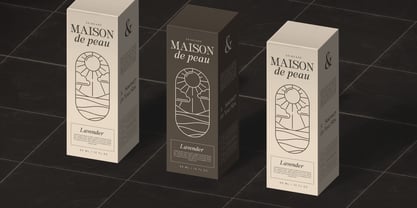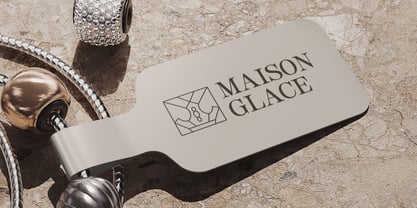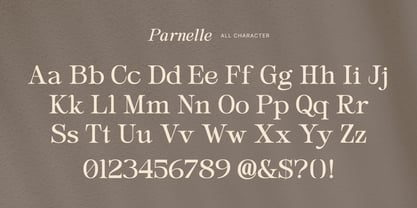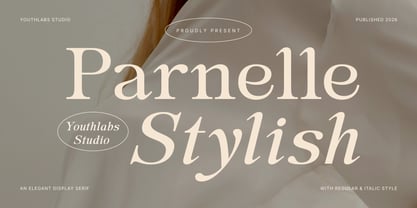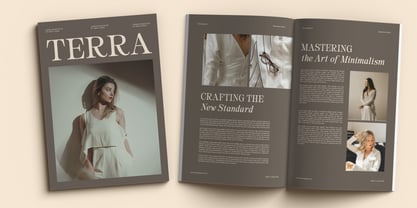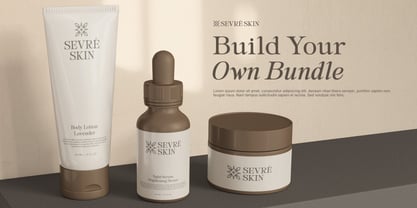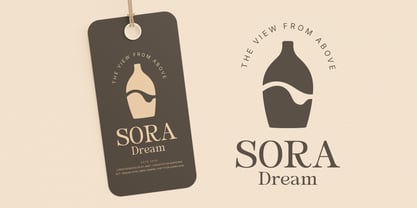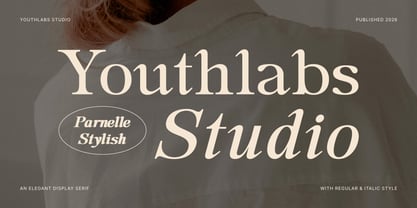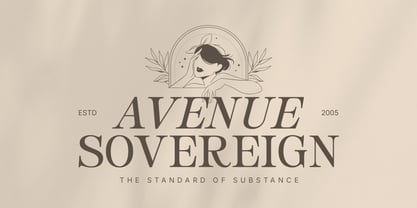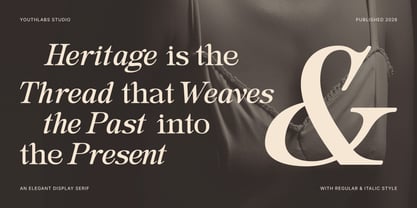
Parnelle
by Youthlabs
The Parnelle Font Family was designed by Fathi Al Ghazi and published by Youthlabs. Parnelle contains 2 styles and family package options. More about this family
Parnelle is a masterclass in modern elegance. This display serif, meticulously crafted by Youthlabs Studio, seamlessly blends classic letterforms with contemporary flair to create a typeface that feels both storied and fresh. Designed for impact, its high-contrast strokes and refined curves command attention without ever shouting. Whether you are developing a luxury visual identity, designing a sophisticated magazine layout, or crafting premium packaging for a boutique brand, Parnelle provides the polished finish your project deserves. With both regular and italic styles included, it offers the versatility needed to create dynamic, high-fashion compositions that exude grace and authority.